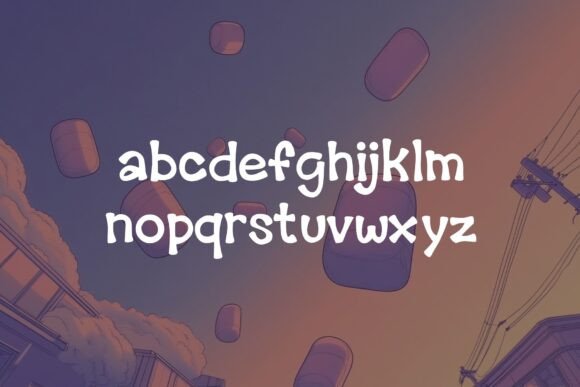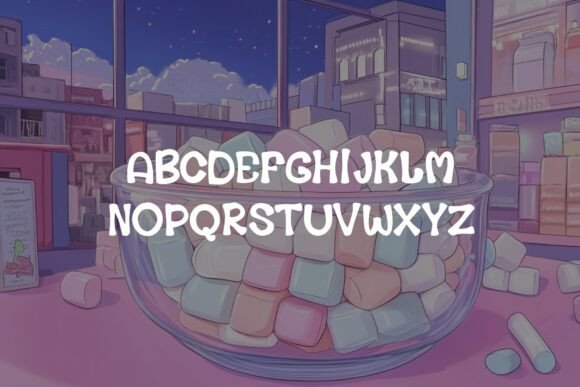
Marshmallow Dreams Font
Float into a world of cozy vibes with Marshmallow Dreams, a lofi-inspired handwritten typeface that’s as imperfect as a doodle but as cute as a cloud! With its soft, wobbly strokes and playful charm, this font brings a touch of warmth and nostalgia to every design.
Whether you’re creating journals, stationery, cute branding, social media posts, or kawaii-inspired graphics, Marshmallow Dreams adds that sweet, effortless aesthetic you’ve been looking for.
Perfect for girls who love cozy aesthetics, pastel themes, and all things cute, this font is legible, fun, and full of personality—just like your favorite lofi playlist on a rainy day.
Let your creativity drift like a marshmallow in hot cocoa with Marshmallow Dreams!